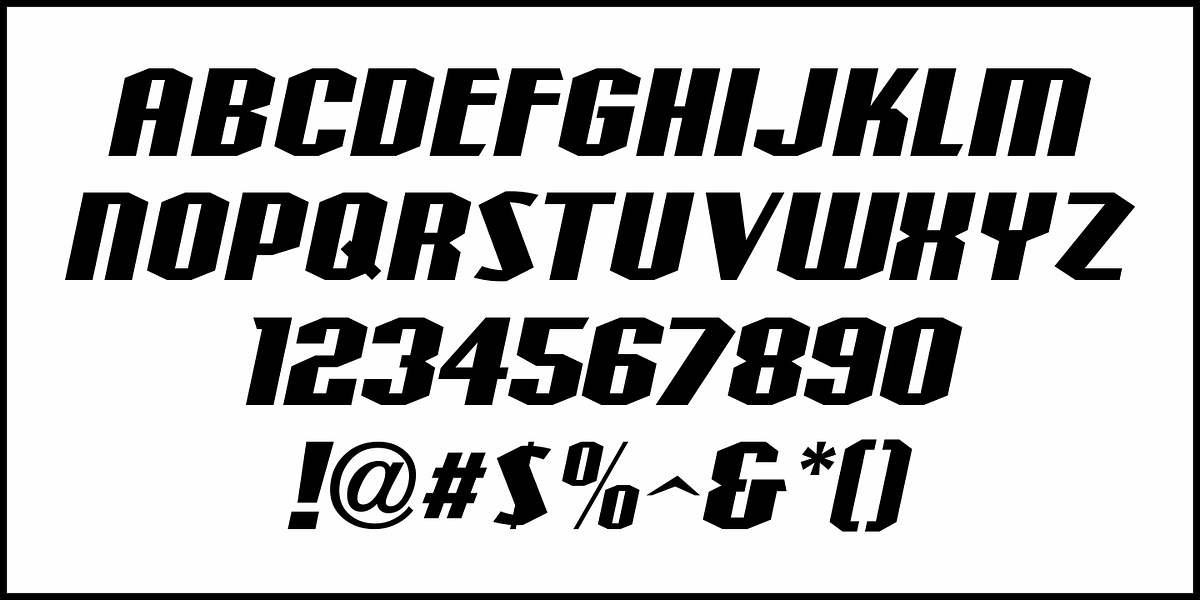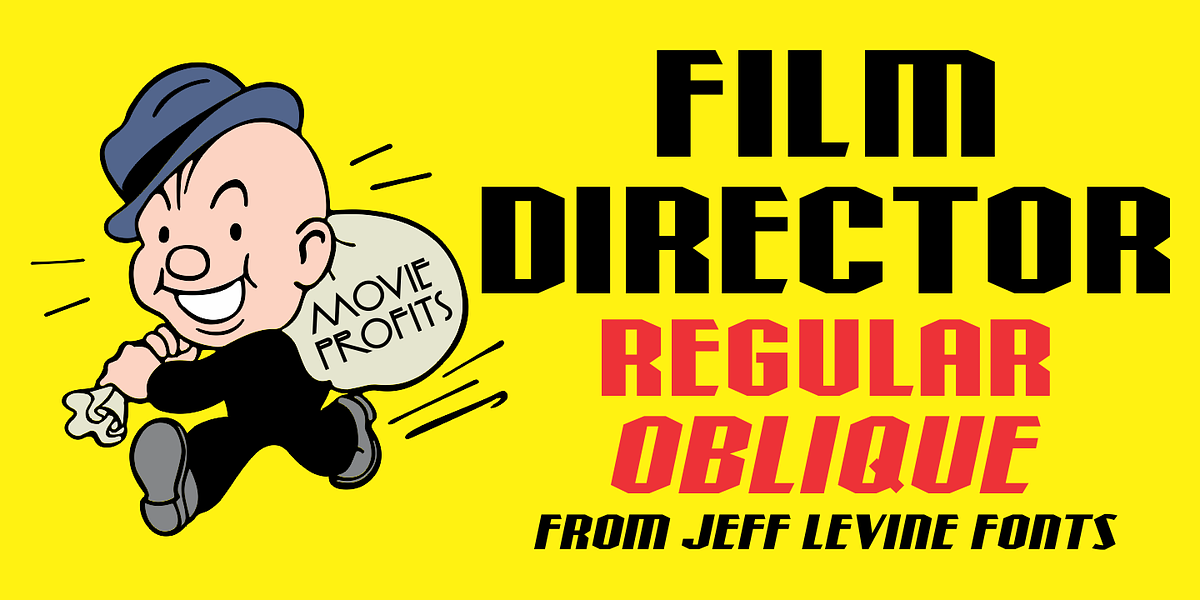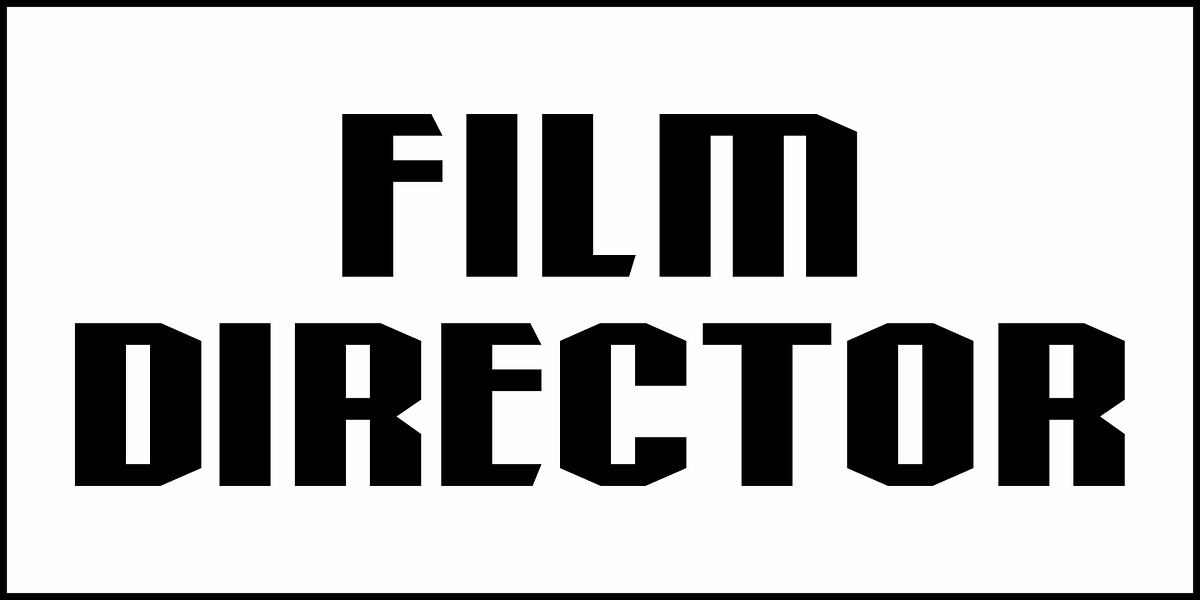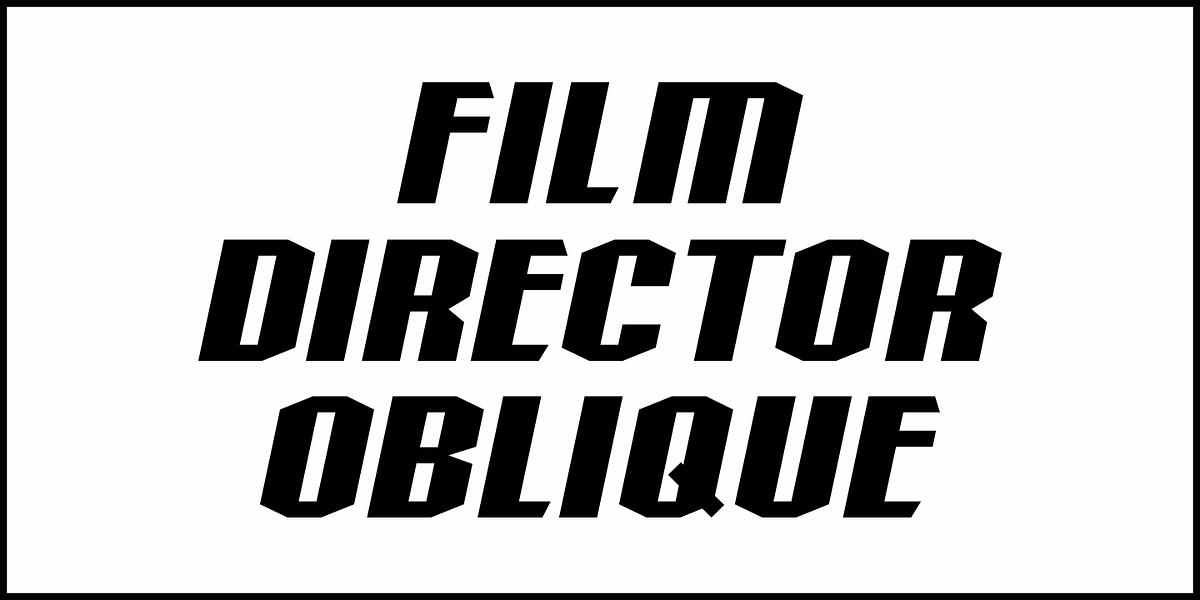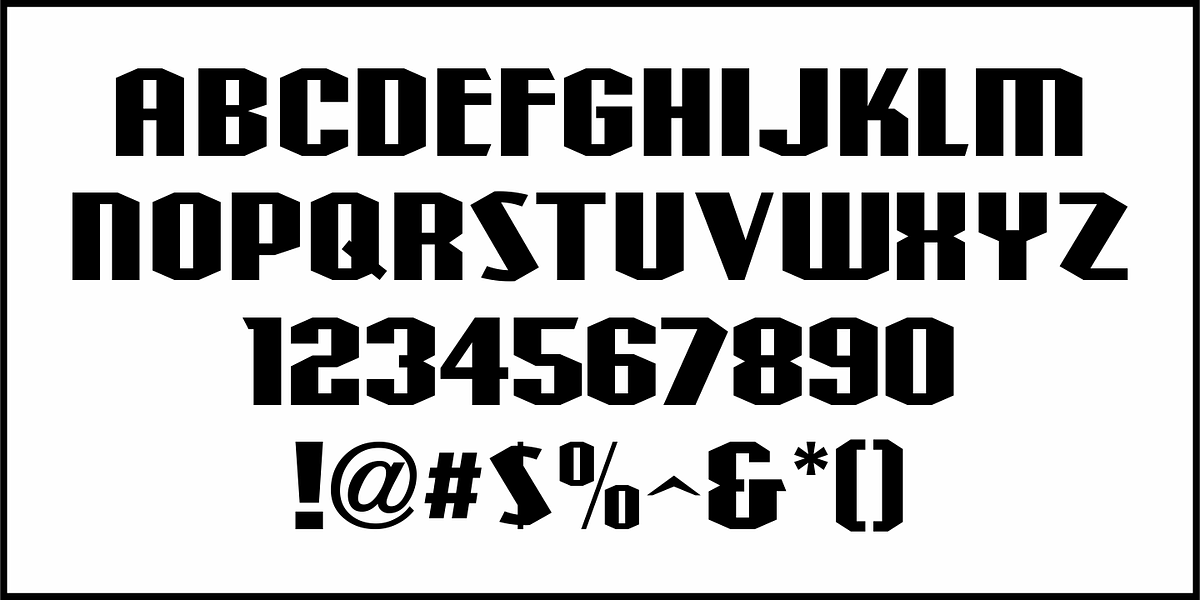
Film Director JNL
The October 1, 1938 issue of Boxoffice Magazine carried an ad for the Visugraphic Film Corporation. The company's name was hand lettered in an ultra bold sans serif style with chamfered corners and Art Deco influences.
This is now available as Film Director JNL in both regular and oblique versions.